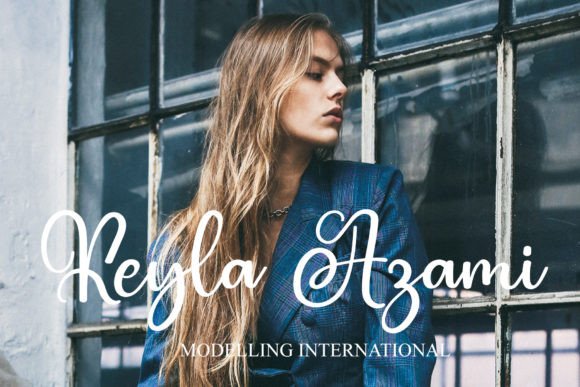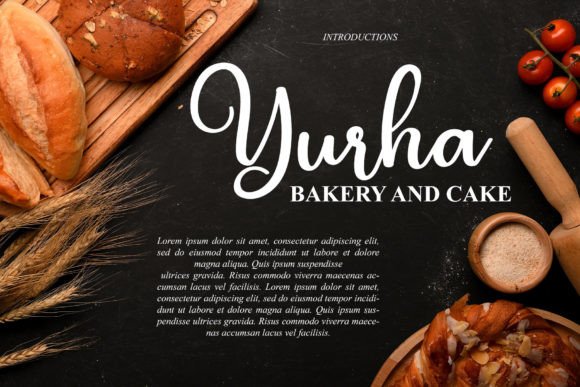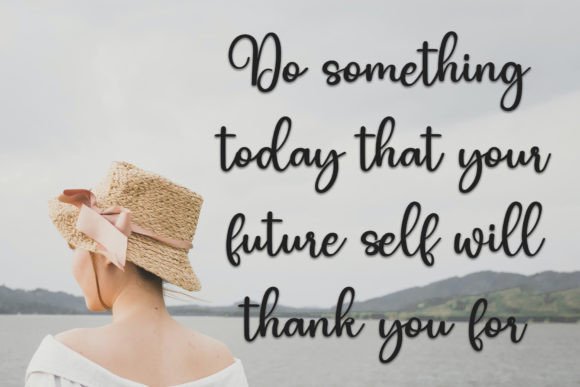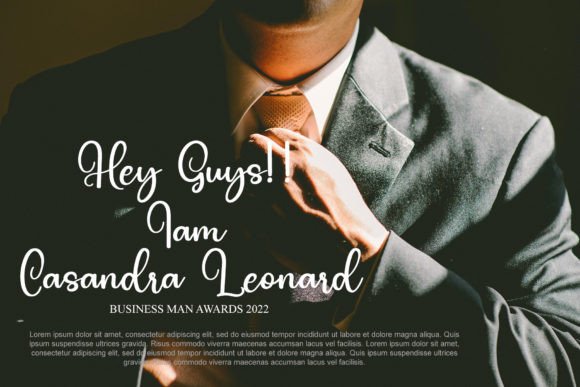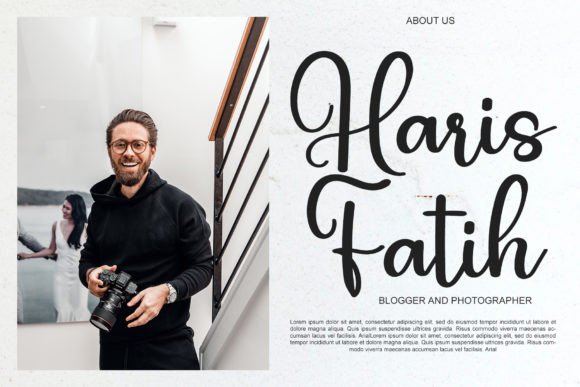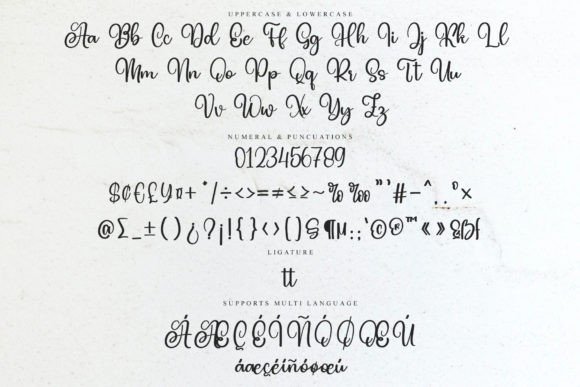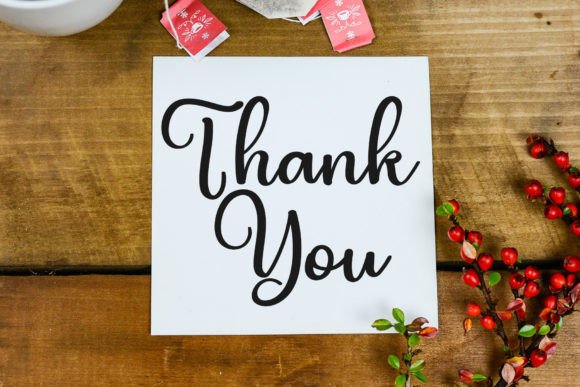
Yearly Font Download – Stylish Dainty Script Typeface
The Yearly Font download is a stylish and dainty script typeface that adds elegance and sophistication to your designs. With its graceful flow and refined details, this font is suitable for both professional branding and personal creative projects. Whether for logos, invitations, or labels, Yearly provides a beautiful handwritten touch that elevates your work.
A Stylish and Delicate Script Style
The Yearly Font download features clean strokes and balanced letterforms that create a polished, elegant appearance. Its dainty flow brings warmth and charm, making it perfect for projects that require both beauty and professionalism.
Perfect for Logos and Branding
Logos, product packaging, and branding projects shine with the Yearly Font download. Its elegant handwritten script conveys creativity and trust, ensuring your brand identity feels unique and memorable.
Great for Labels and Watermarks
The Yearly Font download is also excellent for photography watermarks, labels, and packaging designs. Its dainty handwritten look adds refinement, ensuring your designs remain cohesive and stylish across mediums.
Versatile for Events and Stationery
Wedding invitations, greeting cards, and event stationery look stunning with the Yearly Font download. Its stylish handwritten charm brings romance and sophistication, making your projects stand out.
Readability with Elegance
While many script fonts can feel overly decorative, the Yearly Font download maintains clarity and structure. Its smooth strokes and refined letterforms keep text legible while still carrying an elegant handwritten personality.
Why Choose Yearly Font?
Among script typefaces, the YearlyFont download stands out with its dainty elegance and professional adaptability. It is refined enough for branding and events, yet approachable enough for personal projects.
Add Elegance to Your Creative Projects
Typography sets the tone of your designs, and the YearlyFont download ensures your work communicates beauty, sophistication, and creativity. Whether for logos, stationery, or photography, this font helps your projects shine with timeless handwritten charm.